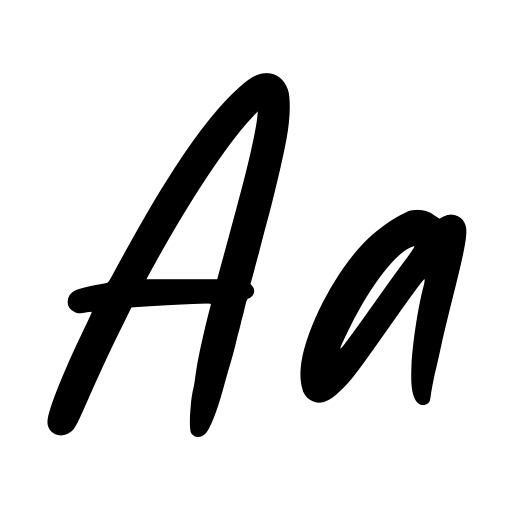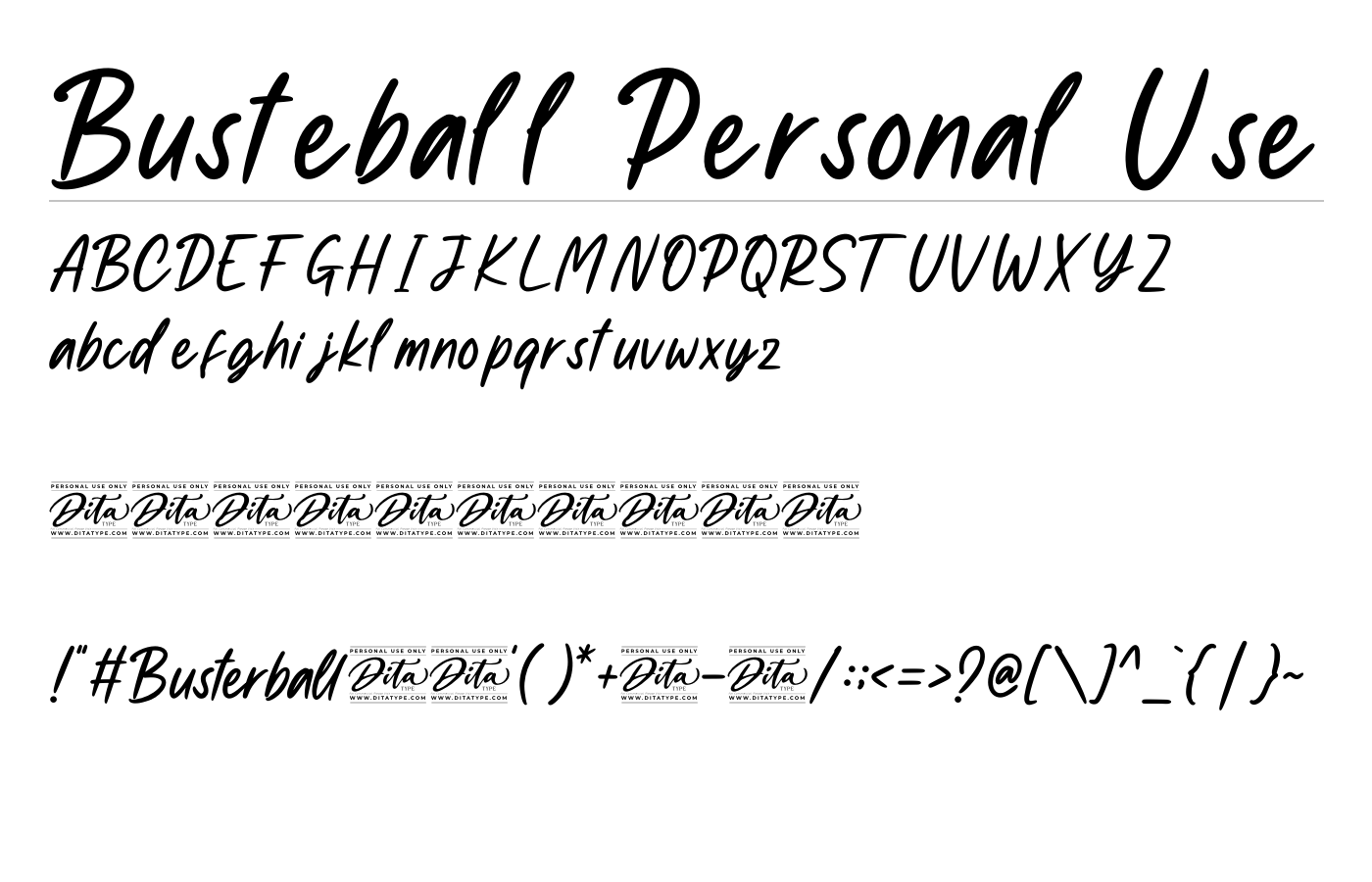
Busteball Personal Use is a lively, casual script font that mimics natural handwriting with smooth, flowing strokes and a medium weight. Its friendly, slightly slanted letterforms create a warm and approachable feel, making it ideal for informal designs, personal branding, or creative projects that want to convey authenticity and charm. This font works well in headlines, social media posts, invitations, and any context where a personal, handwritten touch is desired.
| Font family | Busteball Personal Use Font |
| Designer | Fahrul Arjianto & Donis Miftahudin |
| Trademark | Ditatype |